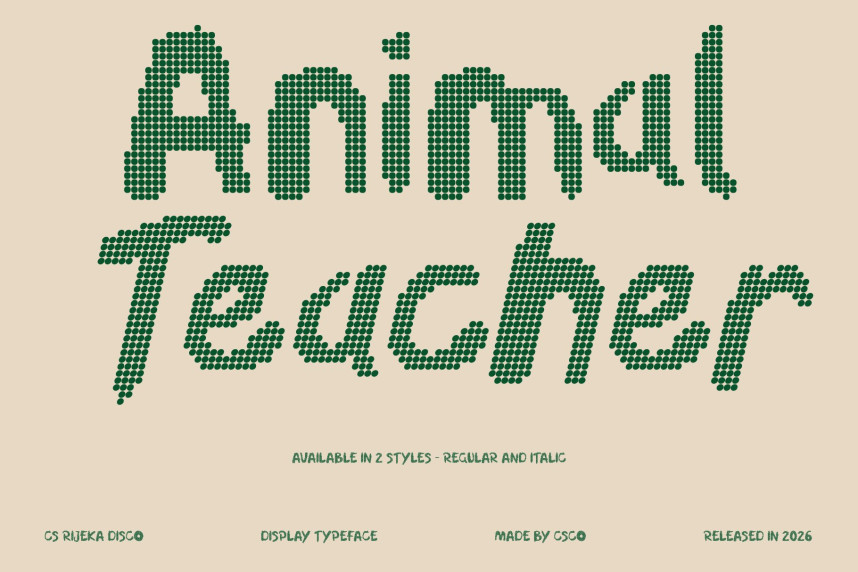
CS Rijeka Disco font
CS Rijeka Disco Font – Handdrawn Dot Font with Playful Glam Fun and Lively Handwritten Energy. This transforms the original handdrawn font into a dotted display style that mirrors the sparkle, rhythm, and dynamism of the dance floor. Each letter is built from small circular dots, giving it a playful, almost confetti-like personality. The font keeps its casual, relaxed charm while amplifying fun and visual excitement.